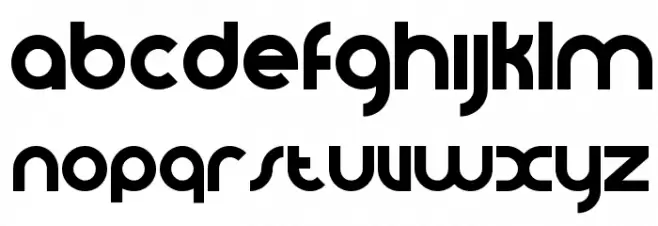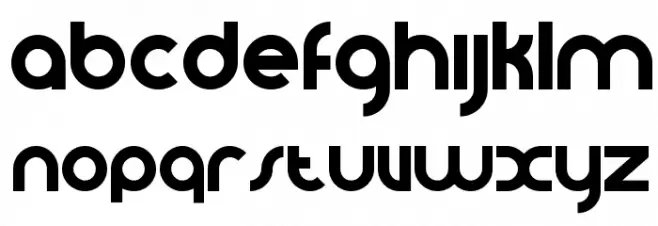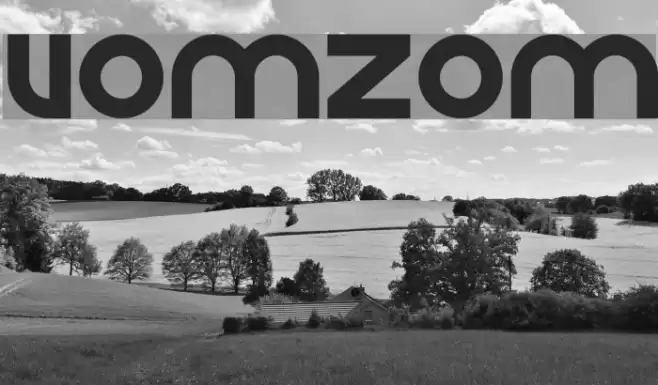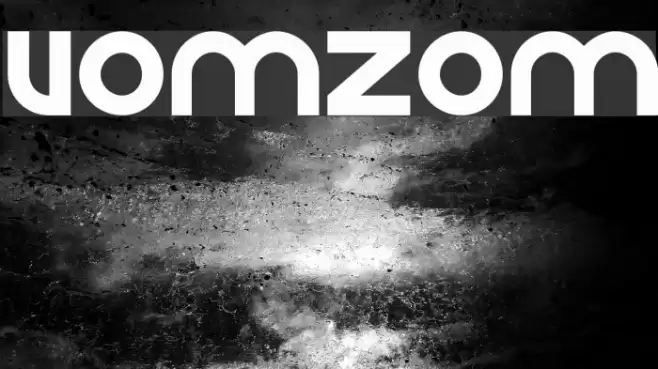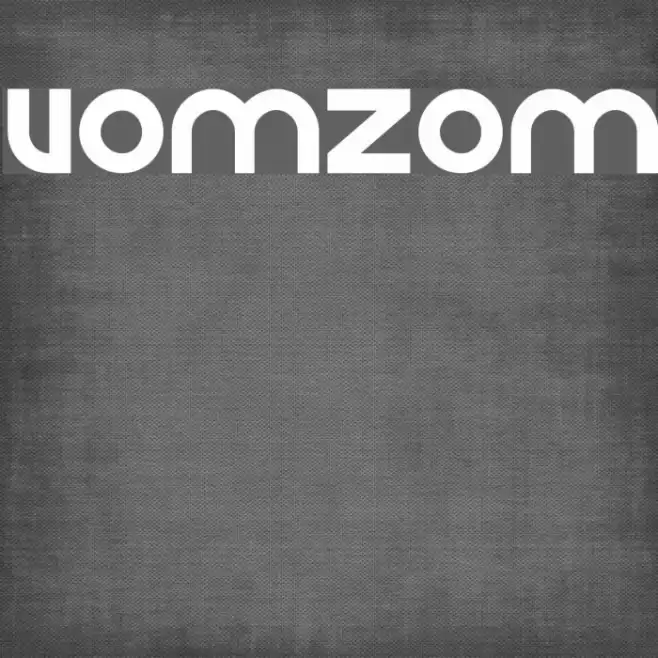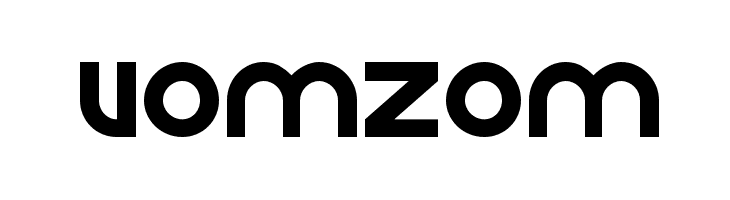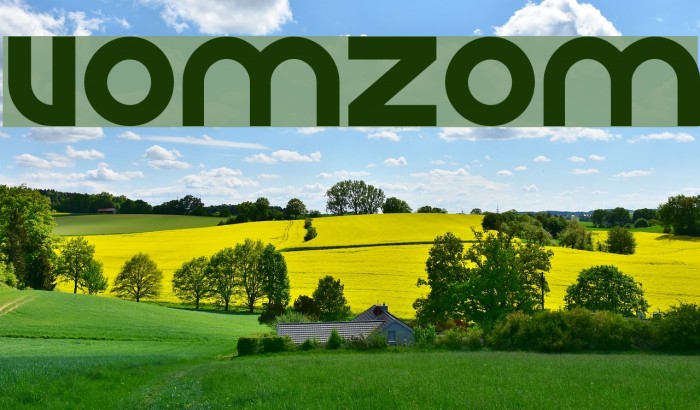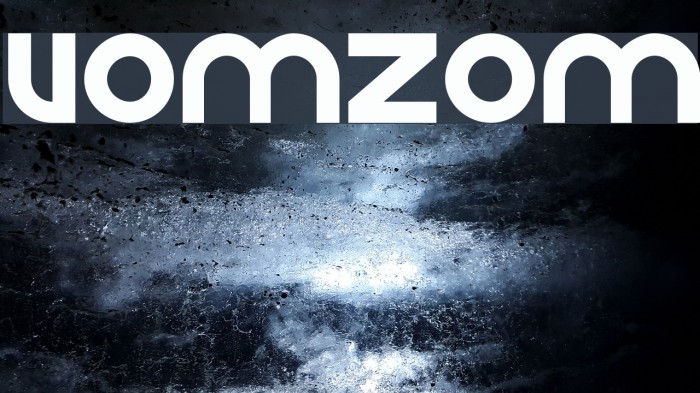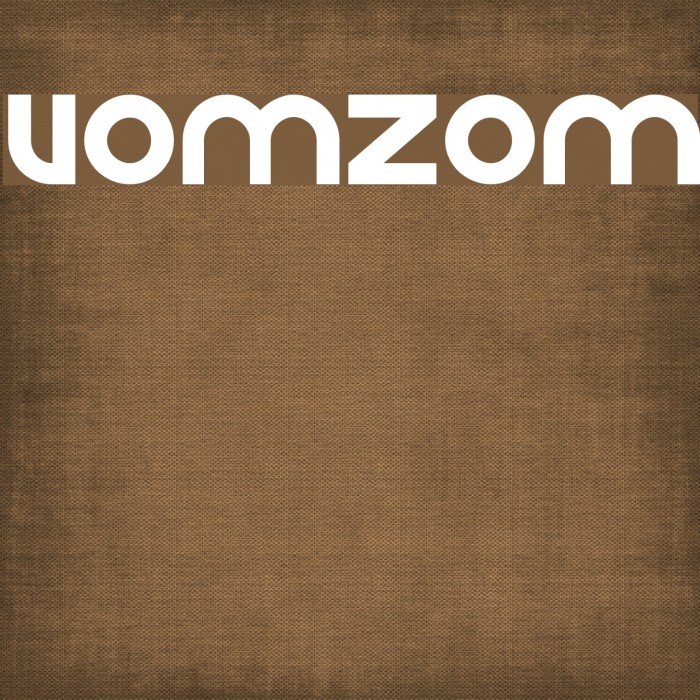
VomZom
This font features a bold and modern design with smooth, rounded edges and a geometric structure. The letters are uniform in height, creating a cohesive and balanced appearance. The style is clean and minimalistic, making it suitable for contemporary design projects. The consistent stroke width and lack of serifs contribute to its sleek and polished look. The font's simplicity and clarity make it highly legible, even at smaller sizes. Its boldness ensures that it stands out, making it ideal for attention-grabbing headlines or branding materials.
A bold, modern font with smooth, rounded edges and geometric structure.
- Proposed Projects: Ideal for branding, headlines, posters, and modern web design.